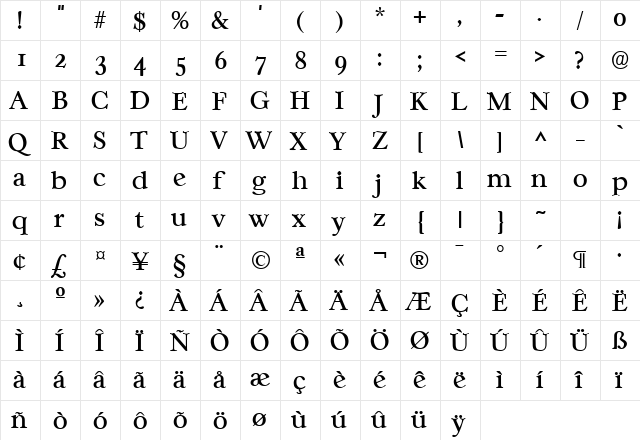
Casablanca SF Regular
Design Context for Casablanca SF Typeface
Casablanca SF takes a measured approach to typography — its balanced proportions and neutral character make it a reliable workhorse for both digital and print work.